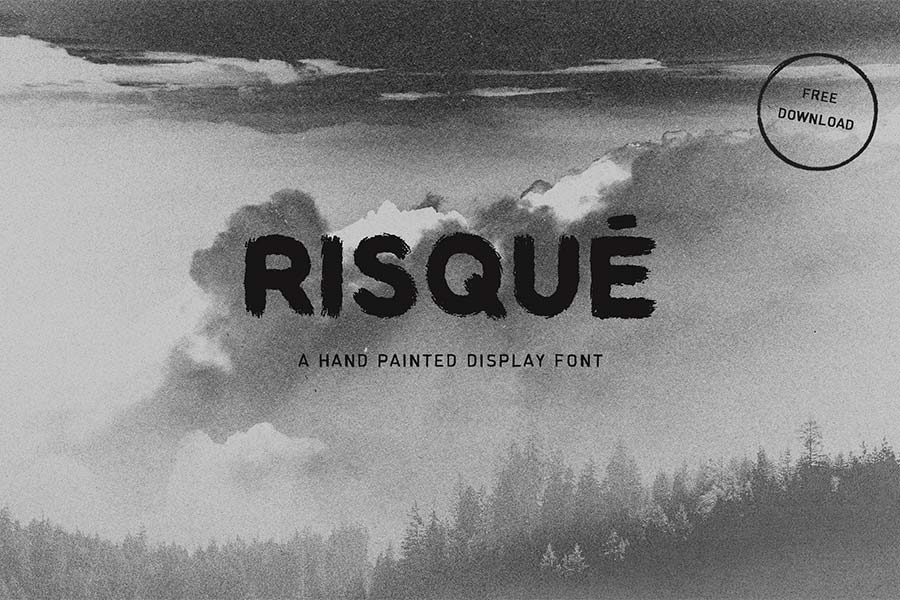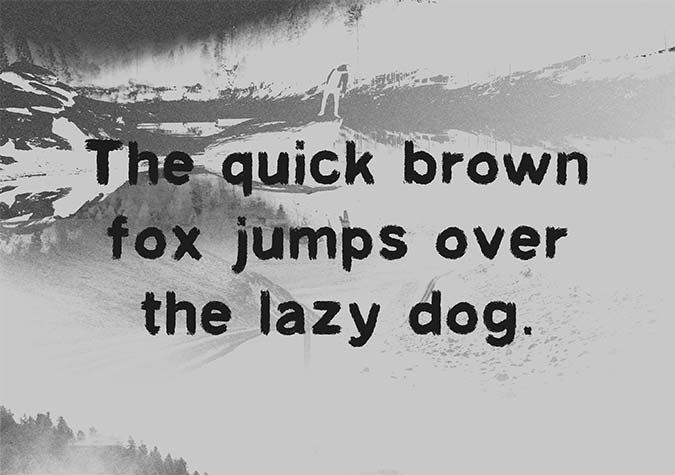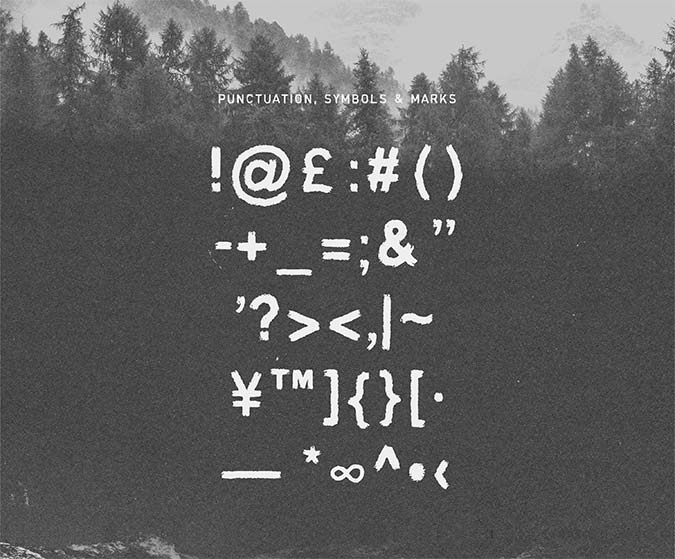
RISQUÉ is a hand painted san-serif font available for download for free. It was painted with oil pastel, each glyphs comes with unique textures and rich in character. This font is ideal for digital design works which requires natural, hand drawn text feel.
It comes with alphanumerics, symbols and supports Western European languages. The download package also comes with web font file format for you to use it on your web projects.